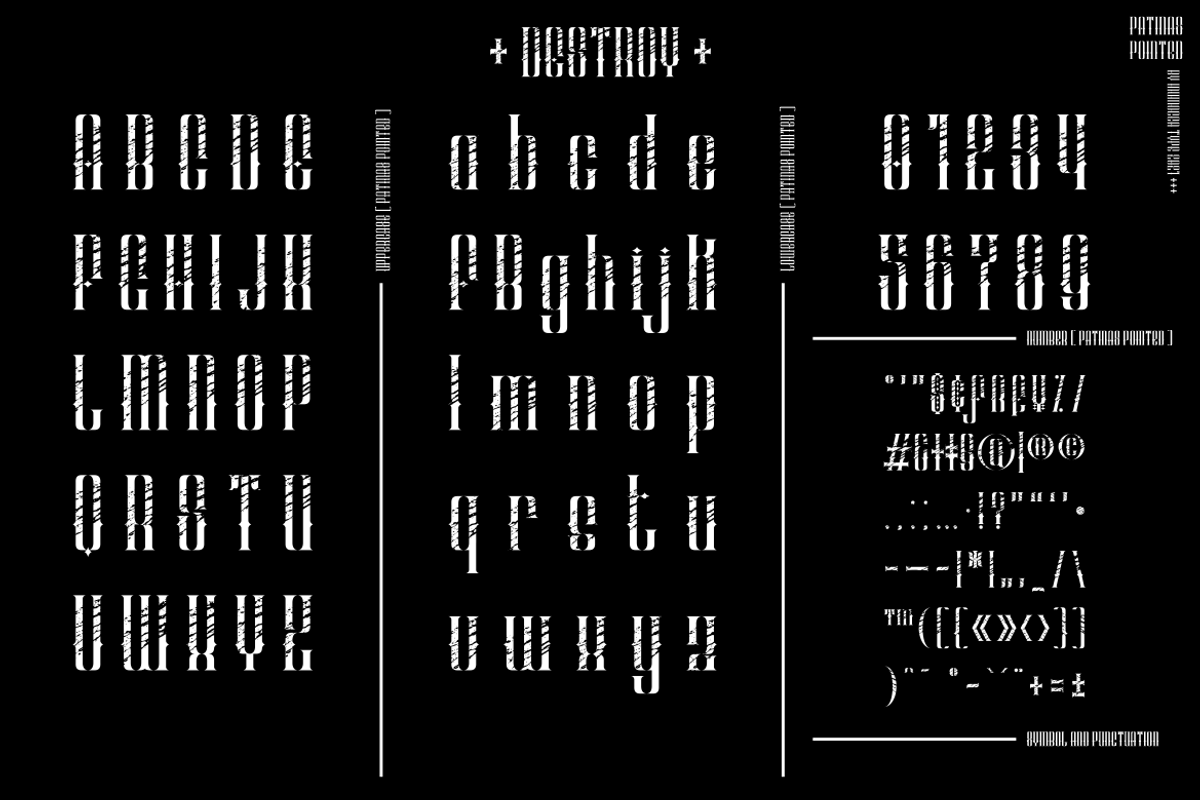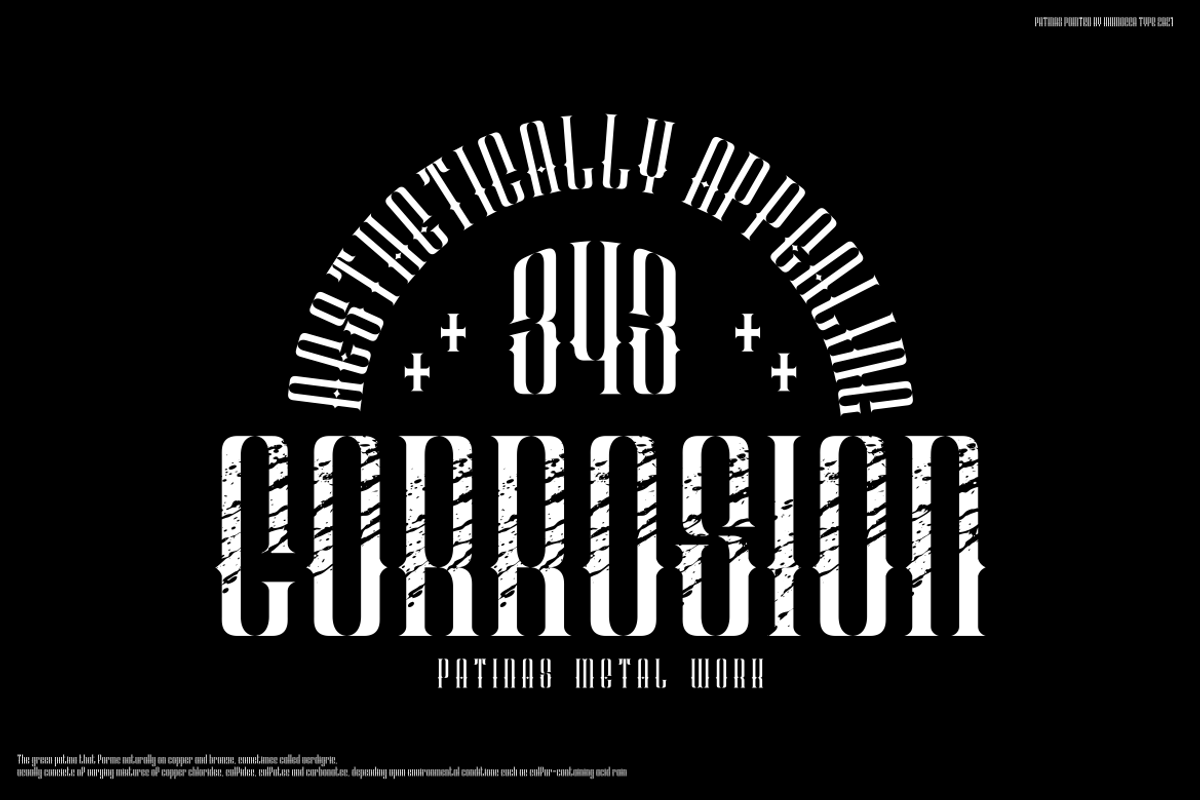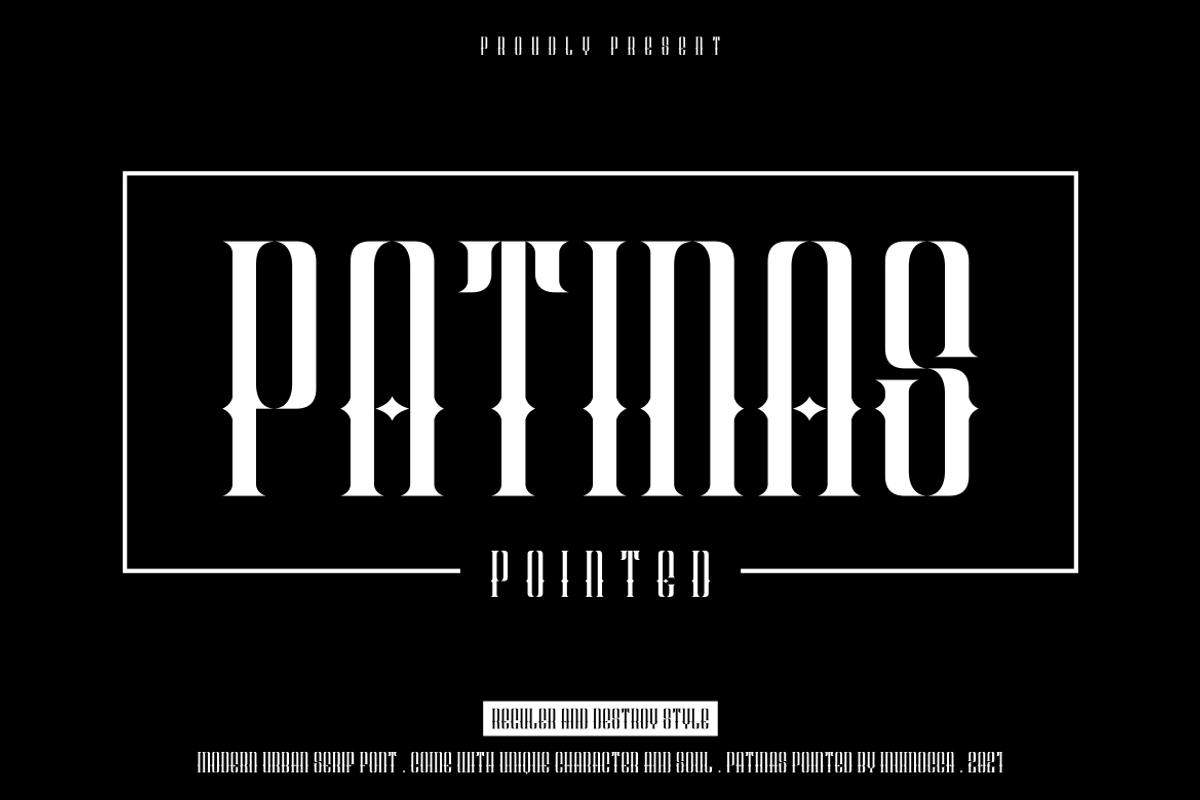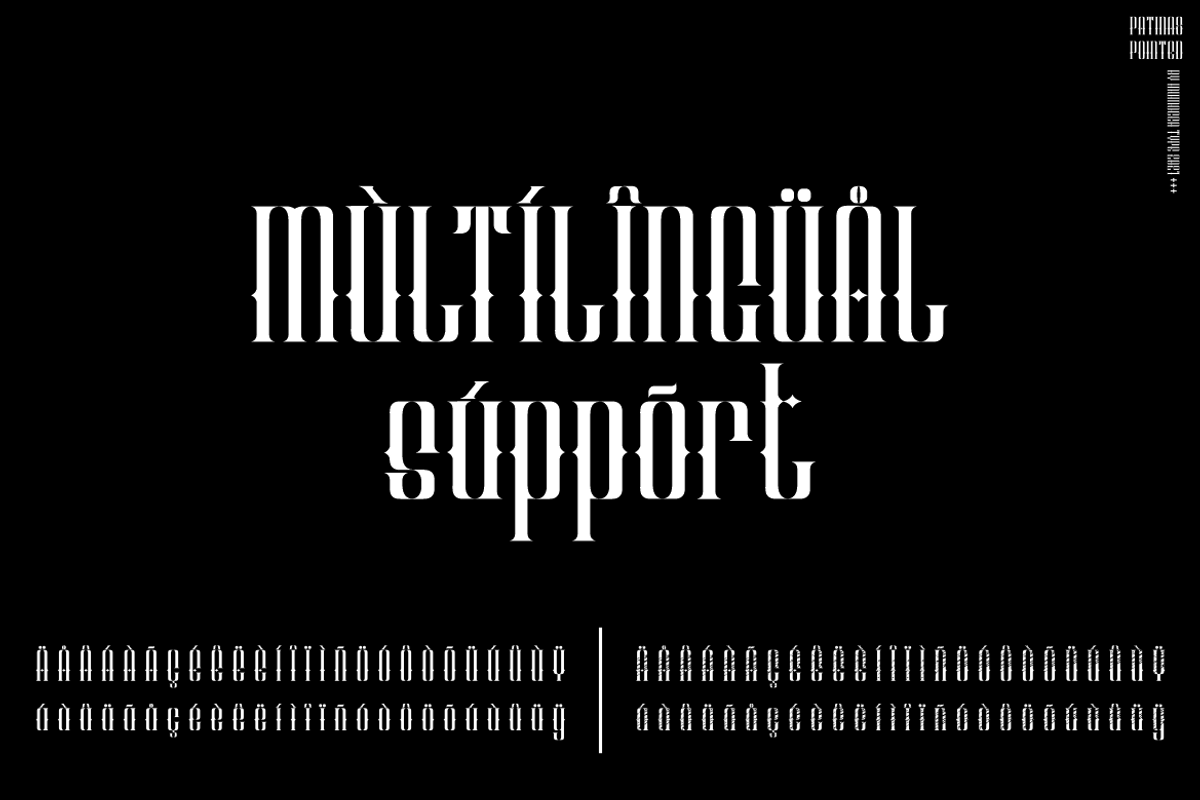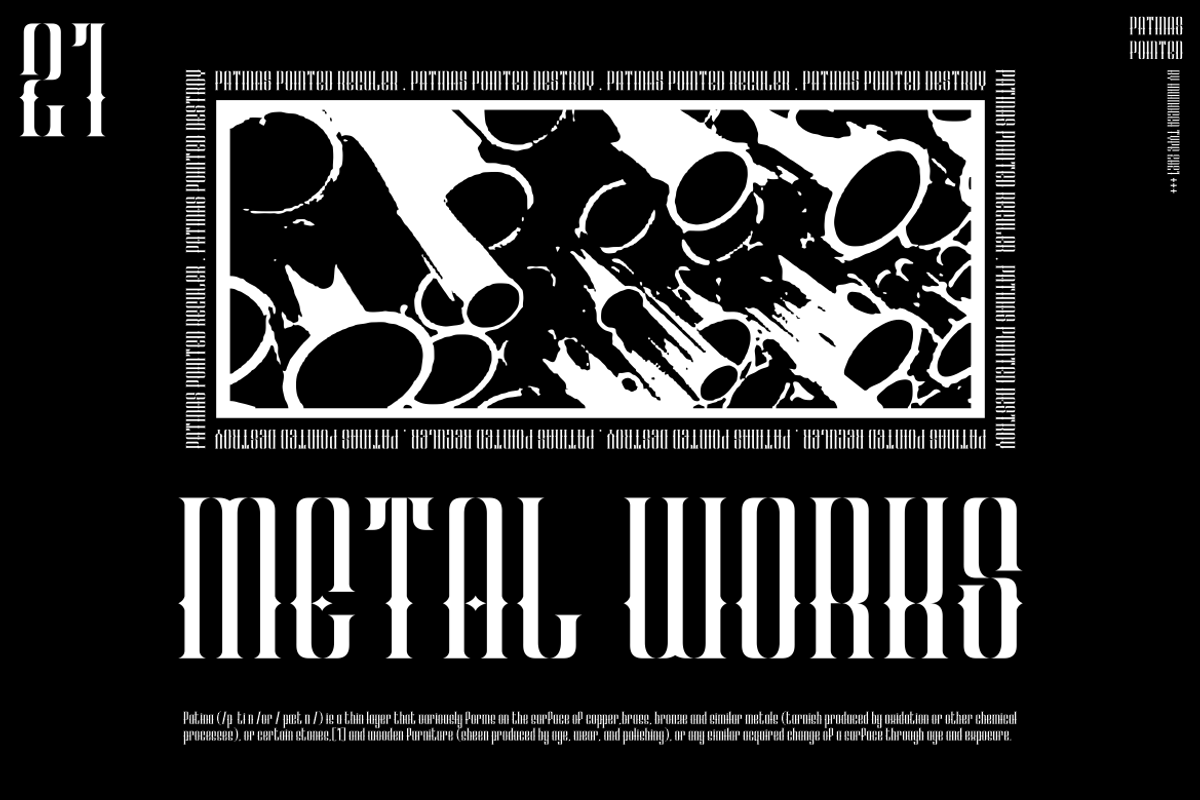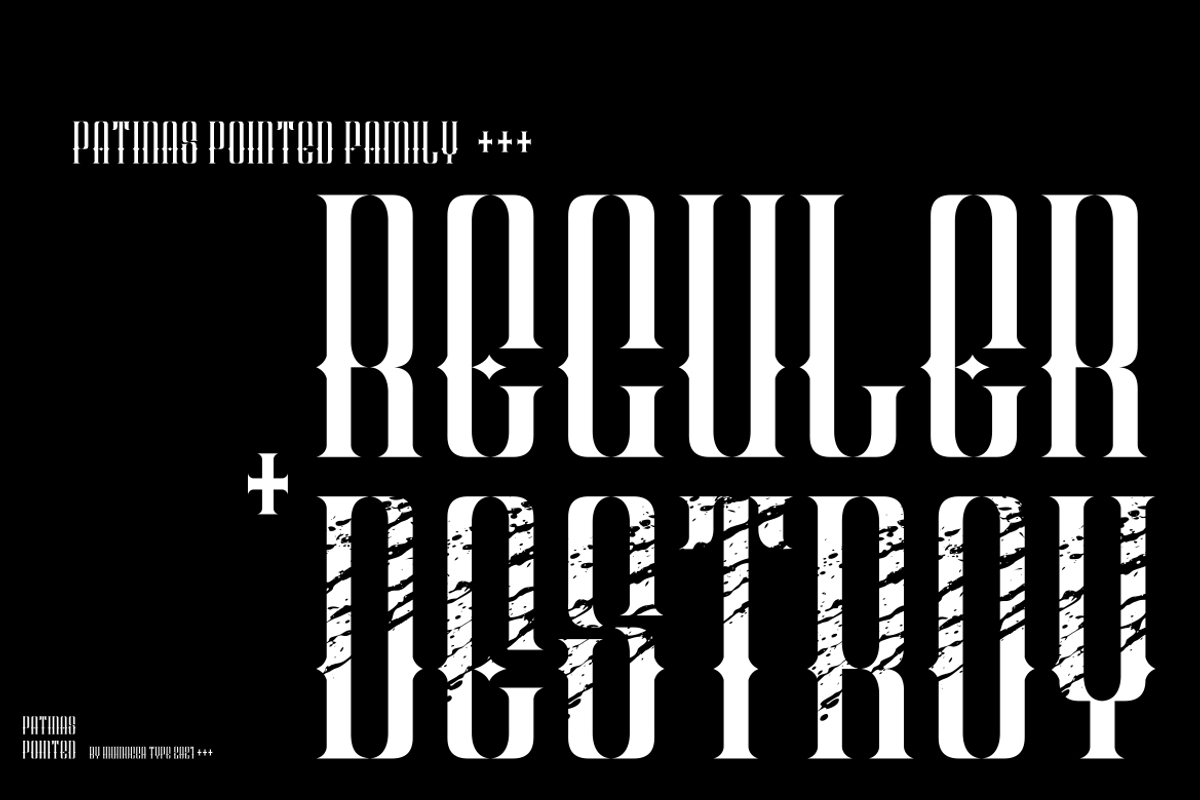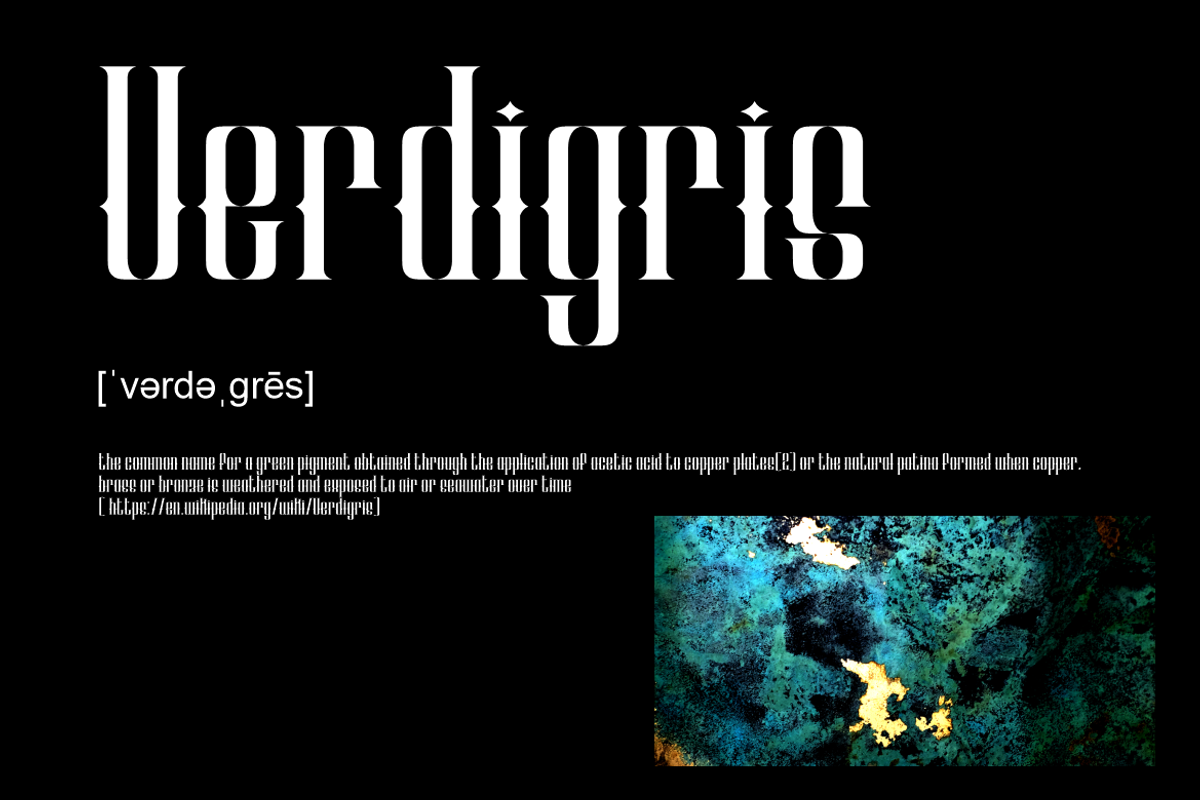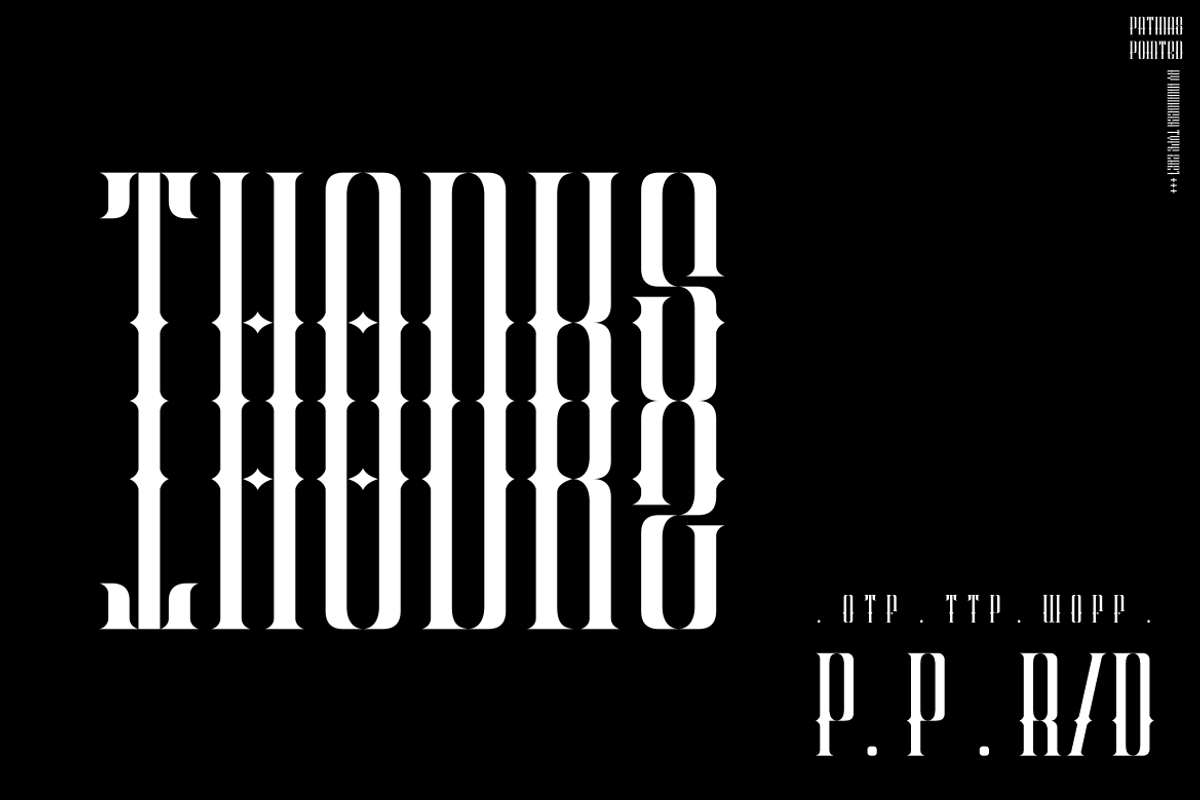
Patinas Pointed
Patinas Pointed with 2 Style Reguler and Destroy
Modern Urban Serif Font, Powerfull and has a great Character, Good Font to use for covering your Project, like Branding, Headline Letter, Flyer, Signage, Quotes, Poster Typography, Bookcover, Magazine cover, Poster, Quotes Lettering, Logos, and more your project design.
- Unique glyphs
- Multilingual Characters Support
- UPPERCASE
- Numeric
- Symbol
- Punctuation Character